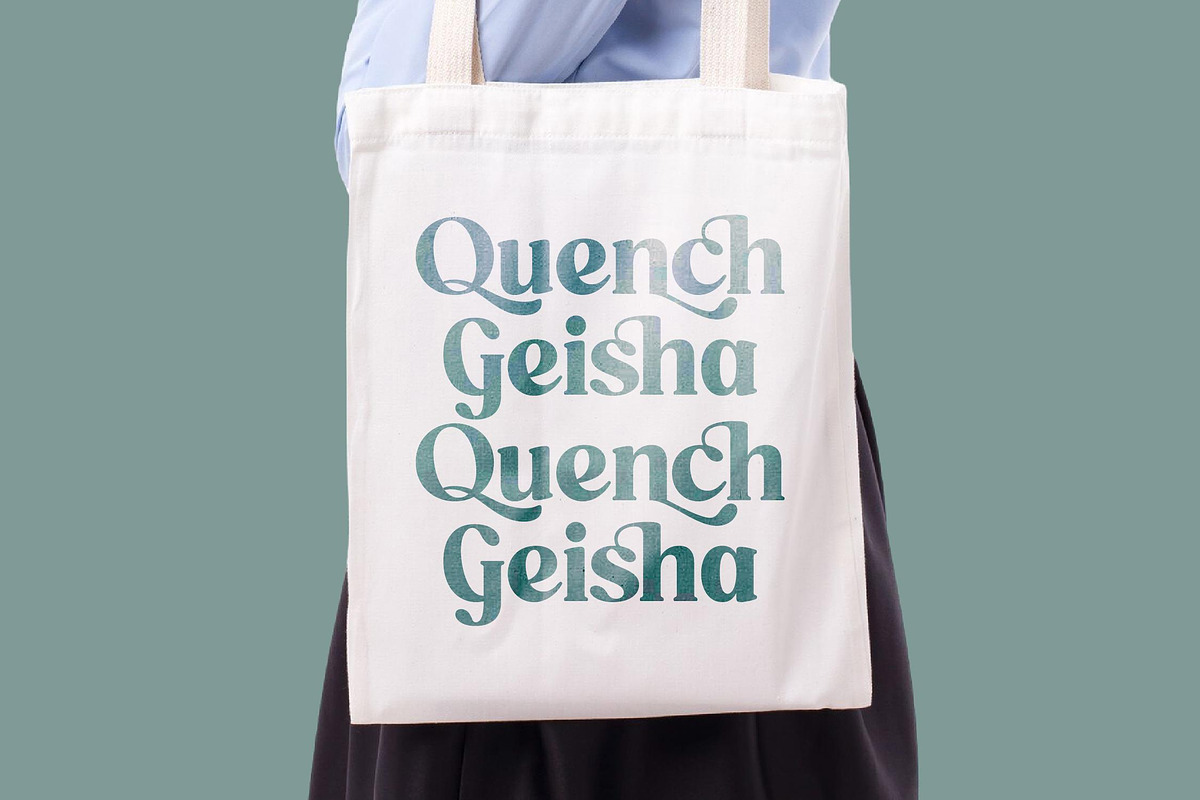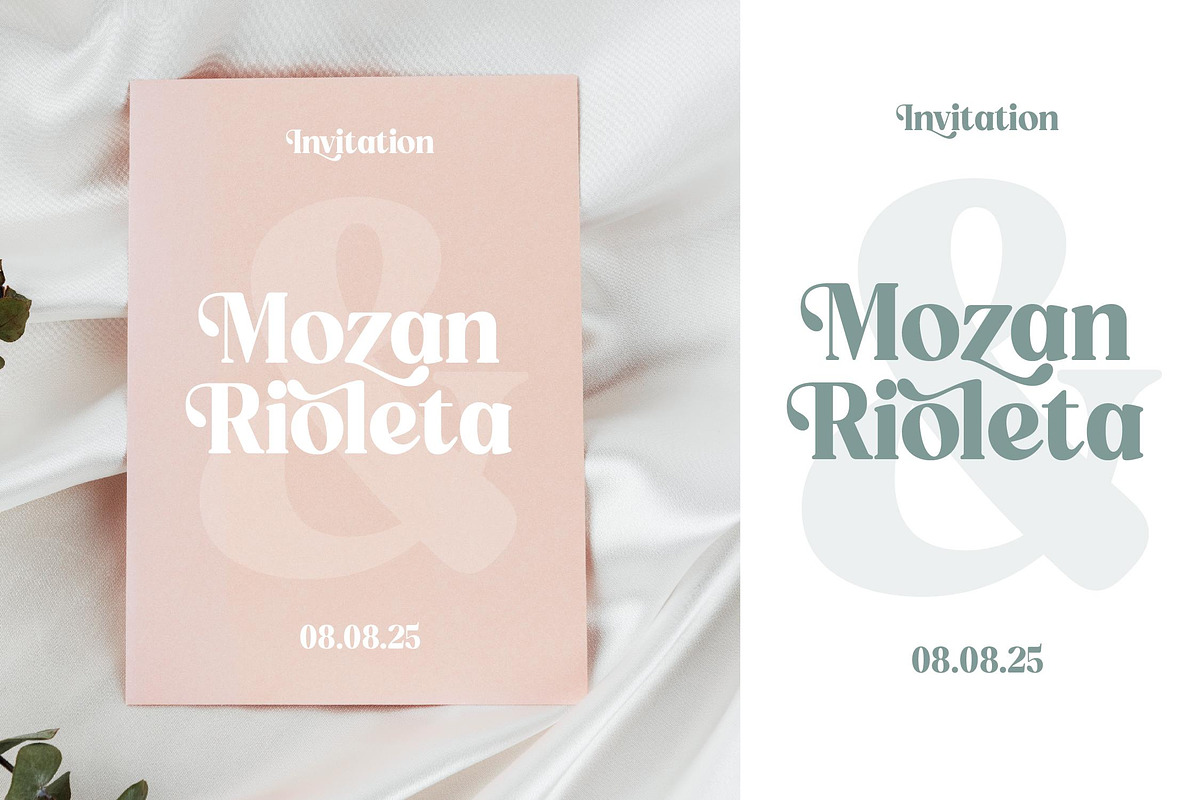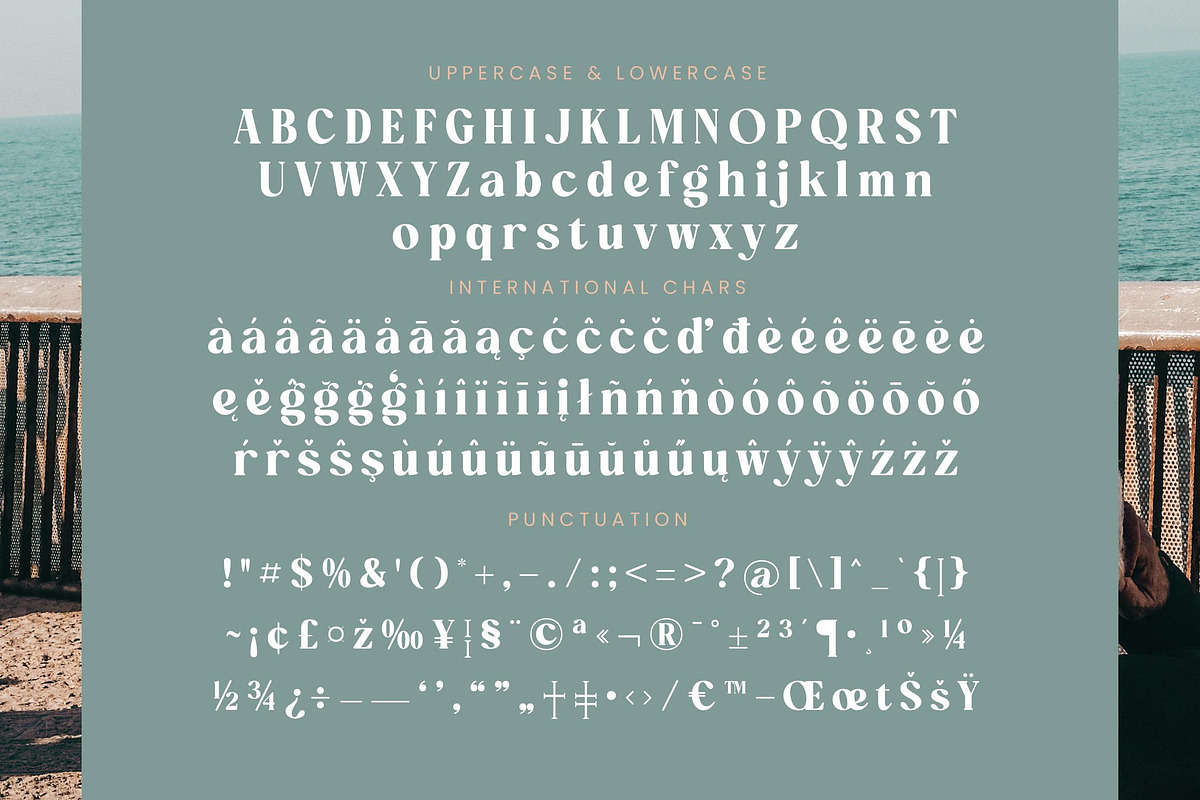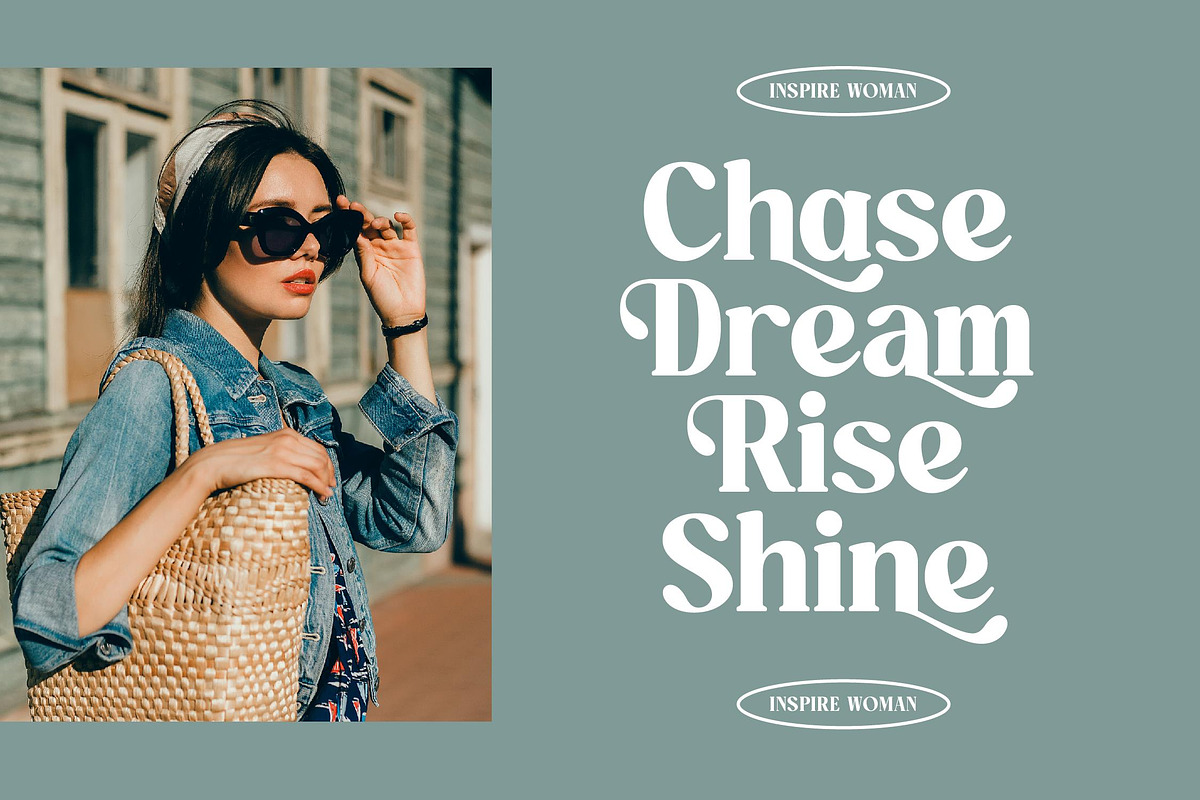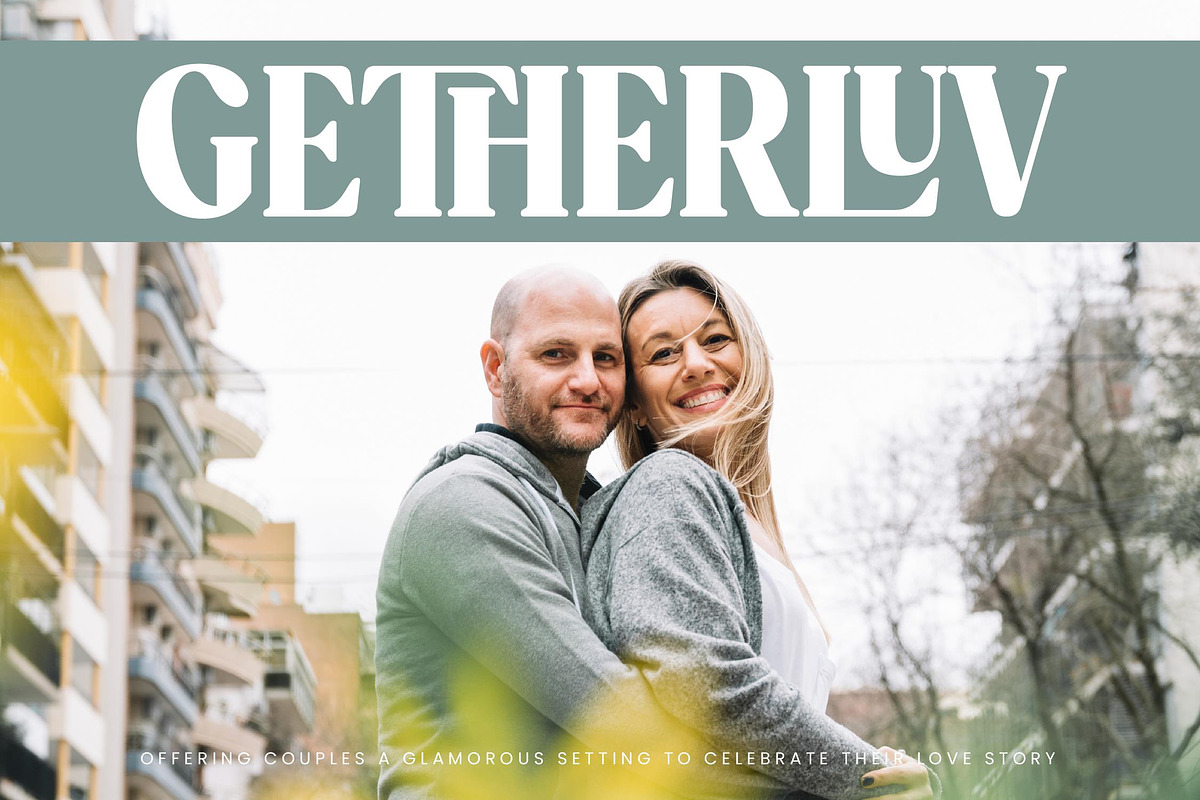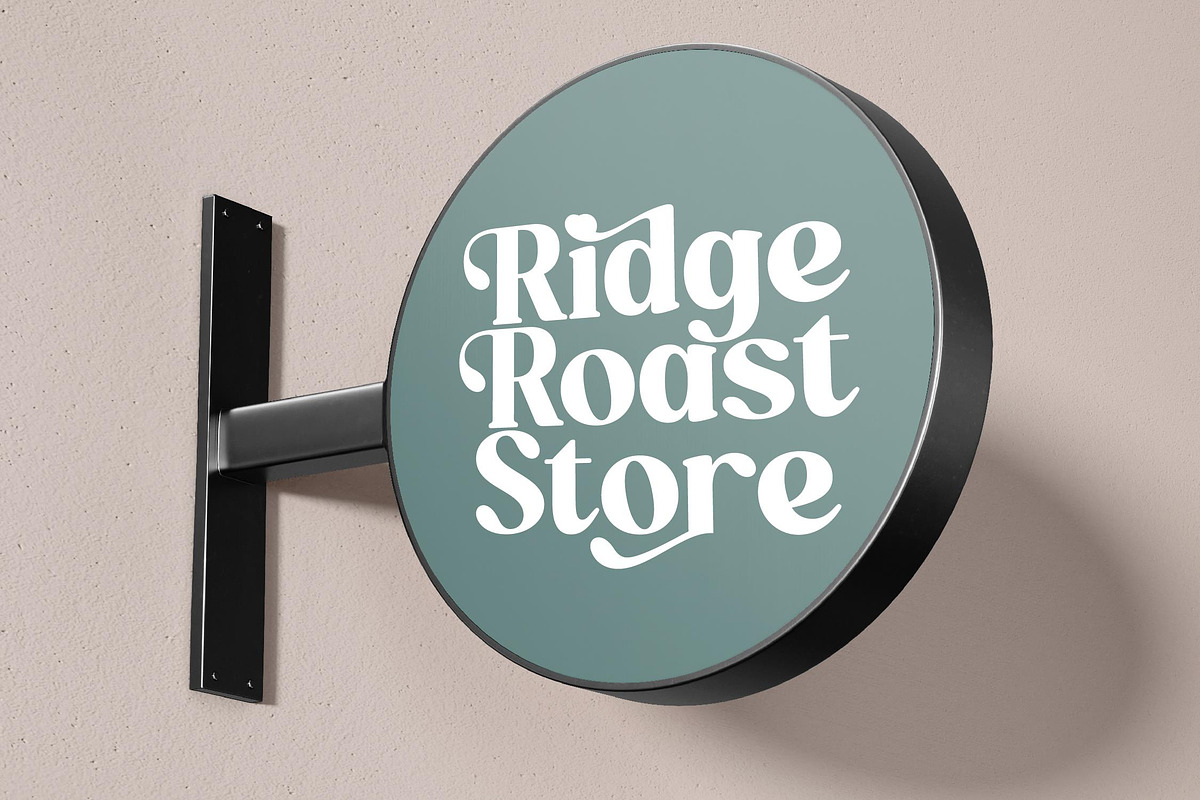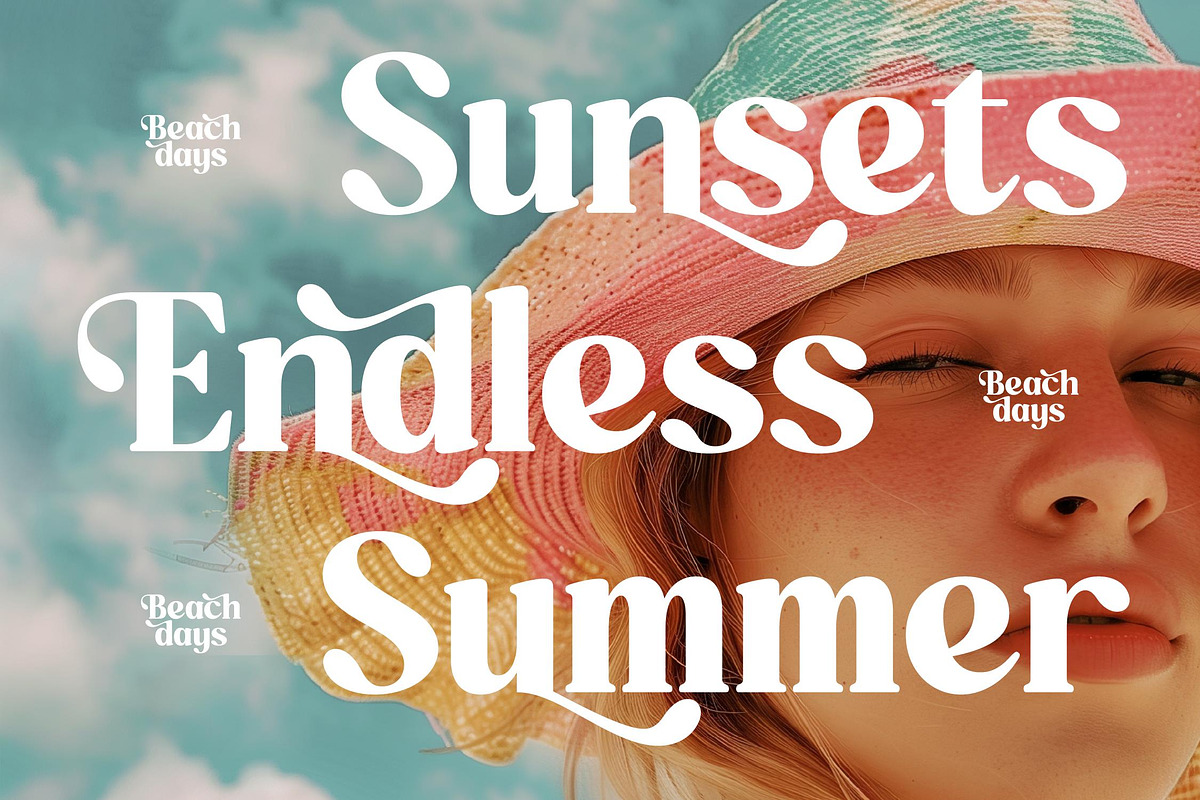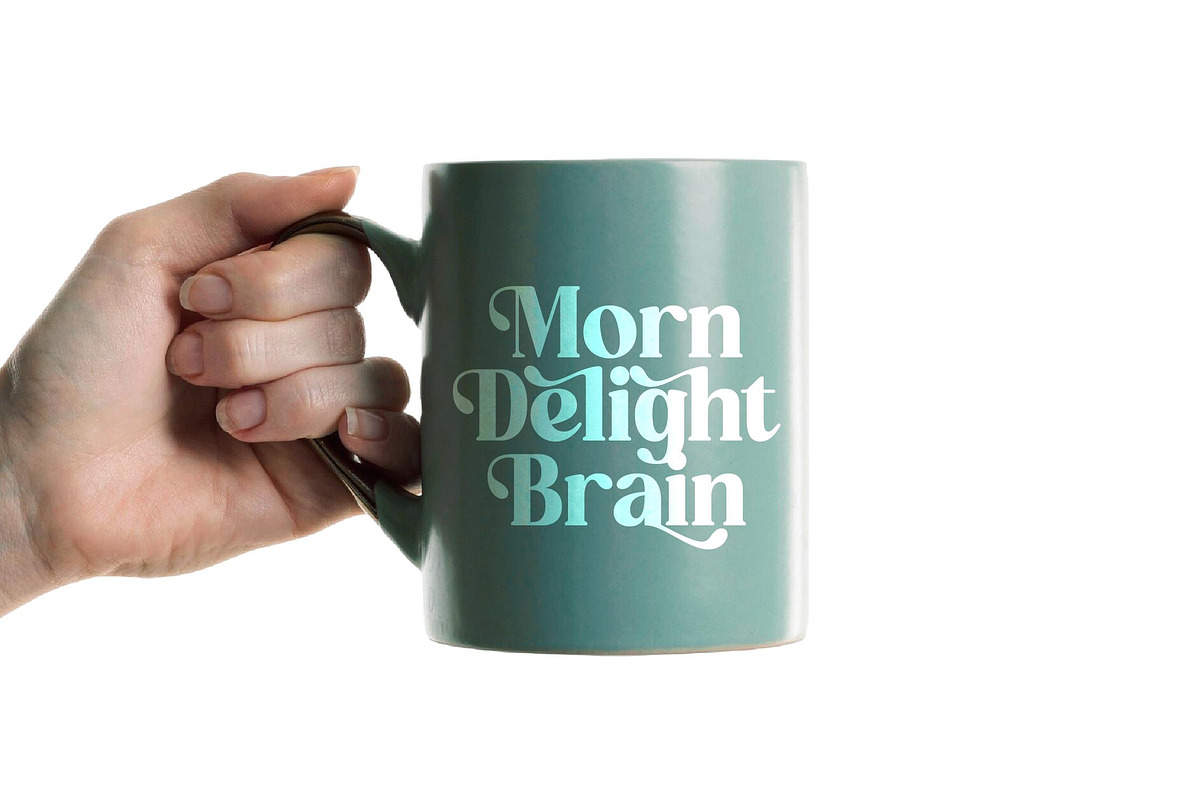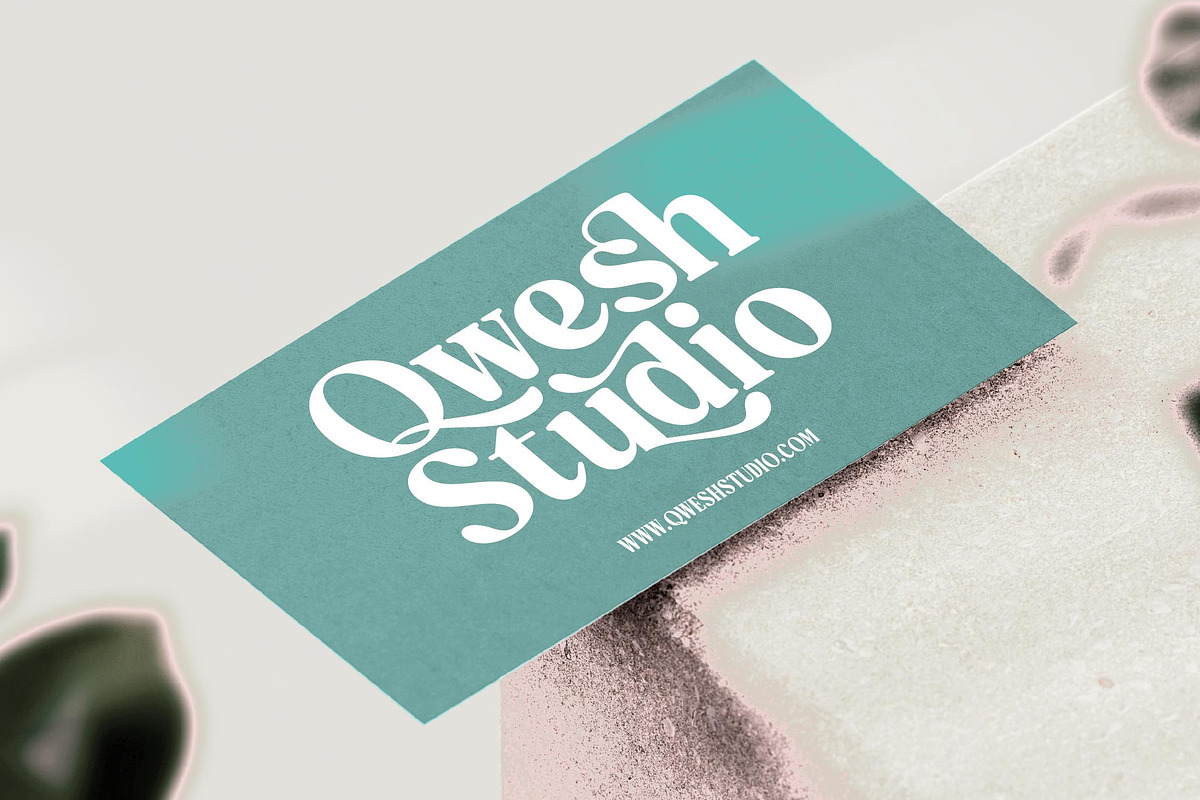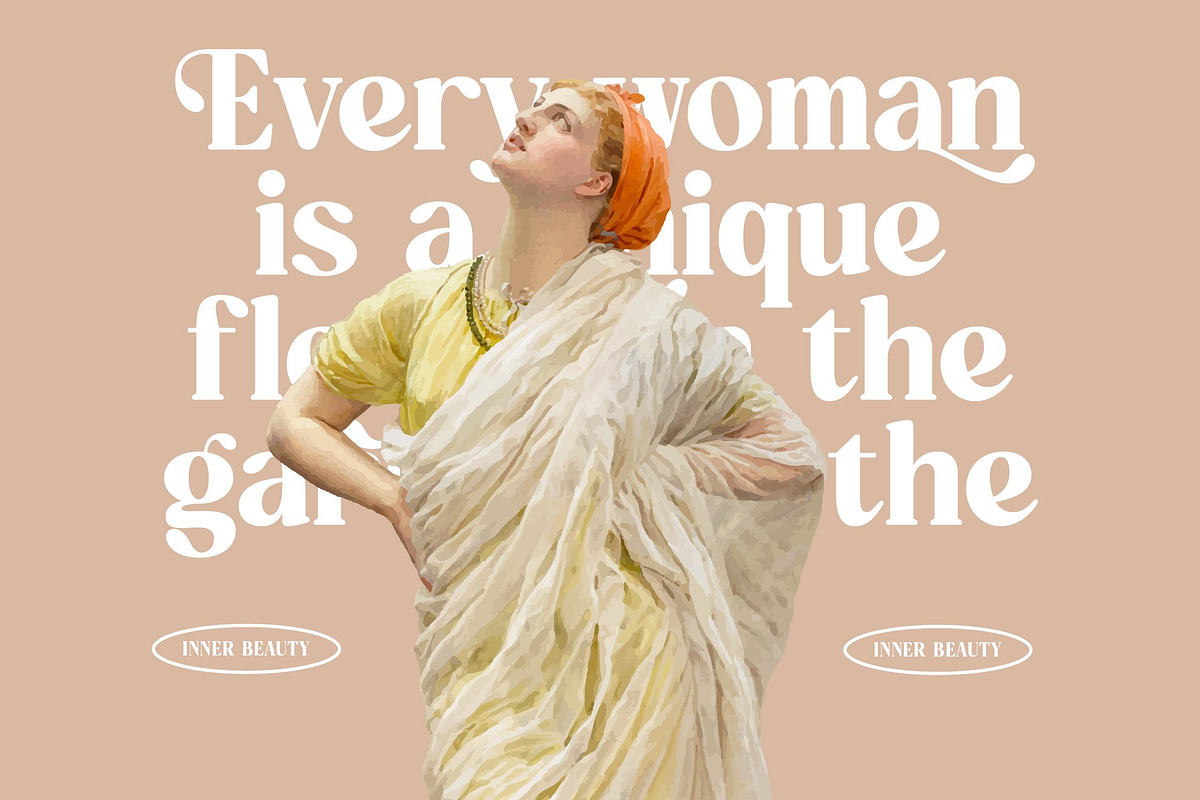
Quick Beach - Modern Retro Serif
Capture the sun-drenched essence of coastal sophistication and timeless charm with Quick Beach, a typeface that turns every design into a scenic getaway. This font is a love letter to the effortless elegance of vintage resort life, reimagined for the contemporary creative.
Inspired by the rhythmic motion of waves and the golden era of mid-century travel posters, this typeface balances organic fluidity with structured refinement. The design journey reflects an atmosphere where breezy relaxation meets high-end boutique aesthetics, creating a visual narrative that is both nostalgic and fresh.
Defined by its modern serif display characteristics, this typeface is engineered for luxury typography that demands attention. Its high-contrast serif construction provides a powerful branding impact, making it the definitive editorial font for projects that require a bold yet graceful presence.
Positioned at the forefront of the modern serif trend, this collection offers character-driven typography that transcends standard design limits. It responds to the growing demand for editorial display fonts that prioritize personality, ensuring your work stands out in a crowded marketplace.
This versatile typeface is a masterclass in flexibility, excelling in logo design, branding, and sophisticated editorial spreads. Whether you are crafting luxury packaging, romantic wedding suites, or high-concept fashion layouts, it provides a polished finish to any creative endeavor.
To ensure your designs are truly unique, the package includes a comprehensive set of ligatures and alternates for maximum customization. Complete with decorative swashes and robust multilingual support for international characters, this font is ready for global application.